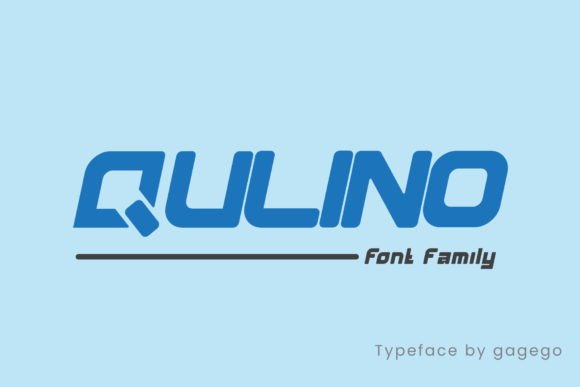
Uncover the Qulino Font: A Typographic Masterpiece for Bold and Innovative Designs
Step into the realm of futuristic typography with Qulino, a sans-serif font that pushes the boundaries of creativity and design. With its sharp angles, geometric shapes, and striking letterforms, Qulino exudes an aura of innovation and forward-thinking. This font is the perfect choice for projects that demand a bold and distinct visual statement.
A symphony of clean lines and geometric precision, Qulino dances across your designs with elegance and sophistication. Its distinct letterforms create a captivating visual rhythm that adds depth and dimension to any project. Whether you're crafting cutting-edge logos, futuristic branding, or eye-catching headlines, Qulino elevates your designs to new heights of creativity.
Immerse yourself in the possibilities of Qulino, a font that transcends the ordinary. Its versatility shines across a myriad of design applications, seamlessly adapting to suit your unique vision. From sleek technology-related designs to fashion-forward branding, Qulino's adaptability knows no bounds. Unleash your imagination and let this font ignite your creative spark.
With Qulino as your typographic companion, you'll discover a world of limitless possibilities. Its bold and innovative style adds an instant touch of sophistication, making your designs stand out from the crowd. Whether you're a seasoned designer or just starting your creative journey, Qulino is the perfect font to elevate your projects and leave a lasting impression.